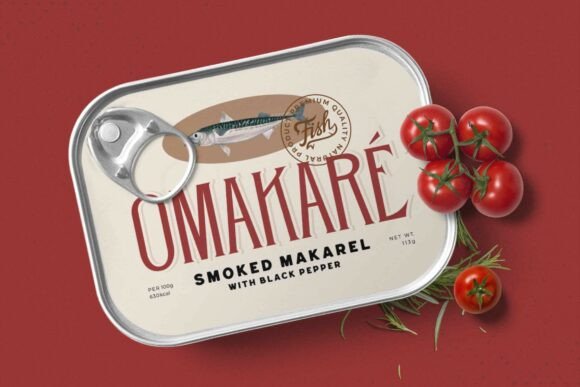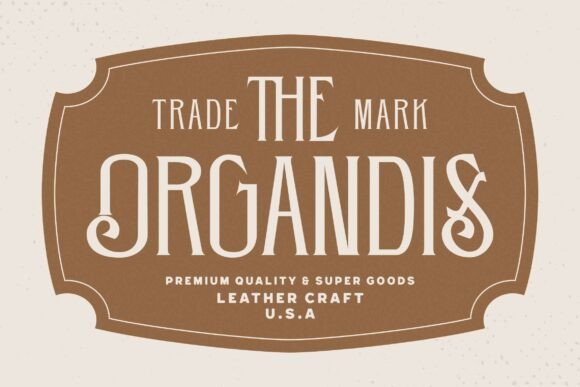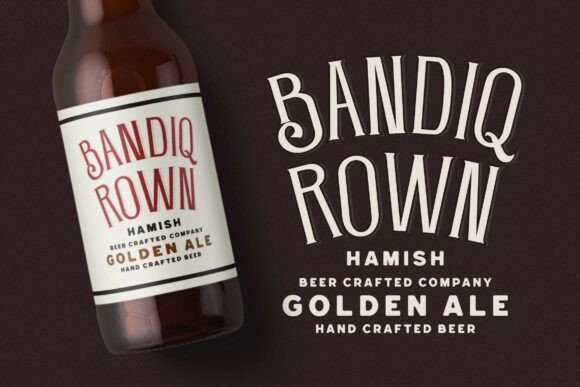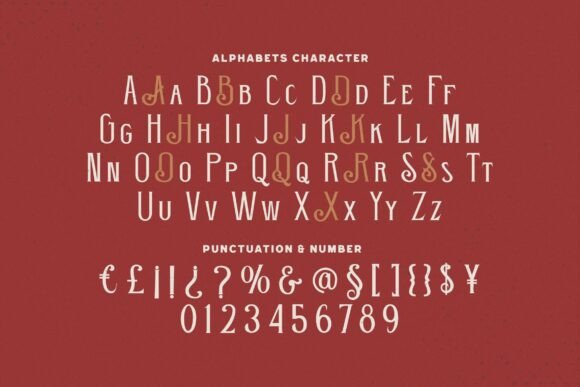
Introduction to Matrike Font Font
Fonts play a crucial role in design, and the Matrike Font font is a typeface that brings both character and versatility to any project. Whether you’re working on a branding project, a website, or a print design, the Matrike Font font offers a unique style that can elevate your work.
Matrike is a tall condensed serif font designed for bold headlines and nostalgic packaging.
Its letterforms feature strong vertical strokes, sharp wedge serifs, and high stroke contrast, reminiscent of early 1900s sign paintings and art deco headlines This combination of sophistication and bold presence makes Matrike ideal for projects that demand a timeless yet distinctive look, whether youβre designing artisanal product labels, retro branding, or luxury packaging.
Key Features of Matrike Font Font
Why Choose Matrike Font Font?
The Matrike Font font is more than just a typeface β it’s a design tool that helps you communicate your message with style and clarity. Its unique character set and versatile design make it suitable for a wide range of applications, from elegant invitations to bold headlines.
With its carefully crafted letterforms and balanced proportions, the Matrike Font font ensures readability and visual appeal across all mediums.
What makes Matrike Font font special?
The Matrike Font font stands out with its unique design, exceptional readability, and versatility across various design applications.